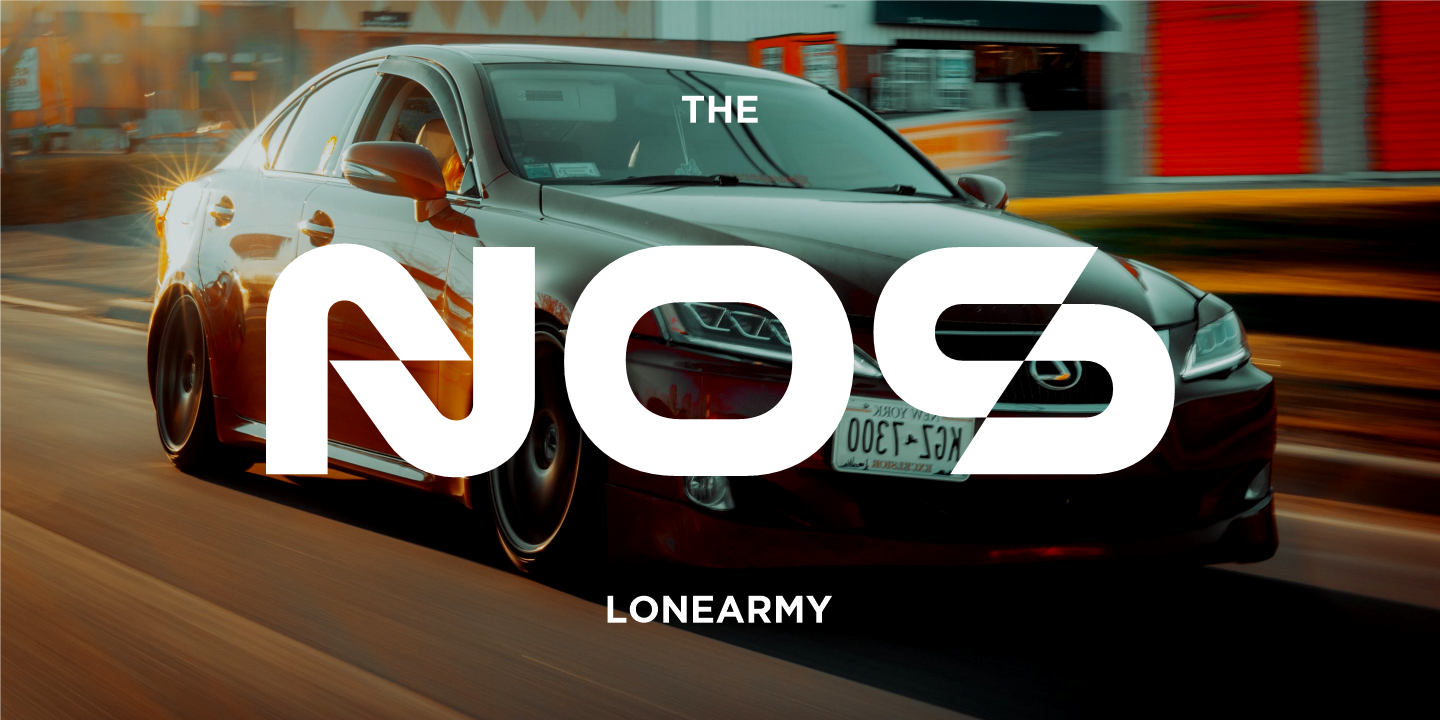
The Nos Font is perfect for racing team logos, automotive performance branding, speed shop signage, drag racing materials, nitrous oxide product packaging, high-performance vehicle modifications, adrenaline sports marketing, and extreme automotive enthusiast publications.
What makes The Nos Font exciting is its explosive speed-driven energy that captures the raw power and adrenaline rush of nitrous-boosted performance through turbocharged letterforms. The aggressive character design and high-octane aesthetics create an atmosphere of velocity and mechanical precision that resonates with automotive enthusiasts and speed demons.
The Nos Font family includes regular, bold, turbo, nitrous, and velocity versions, plus racing ornaments, speed symbols, and automotive decorative elements that enhance the high-performance typography experience with authentic racing culture appeal.
Ignite maximum performance with The Nos Font Free Download, the ultimate choice for brands living life in the fast lane and pushing automotive limits to the extreme. This explosive typeface embodies the spirit of nitrous-powered acceleration through letterforms that seem engineered for quarter-mile domination and designed to break speed barriers with relentless determination. The powerfully crafted characters feature turbo-charged proportions that ensure maximum impact while projecting the kind of mechanical authority that comes from years of fine-tuning engines and chasing personal bests. Racing teams and performance shops consistently select this font for projects requiring authentic connection to street racing culture combined with professional credibility that wins races and builds reputations. Its comprehensive collection of racing elements provides unlimited possibilities for creating memorable communications that celebrate the art and science of automotive performance with technical precision and unbridled passion. Experience the transformative power of speed typography that elevates standard automotive marketing into expressions of mechanical mastery, establishing your brand as a leader in today's competitive performance industry where horsepower and style determine victory.